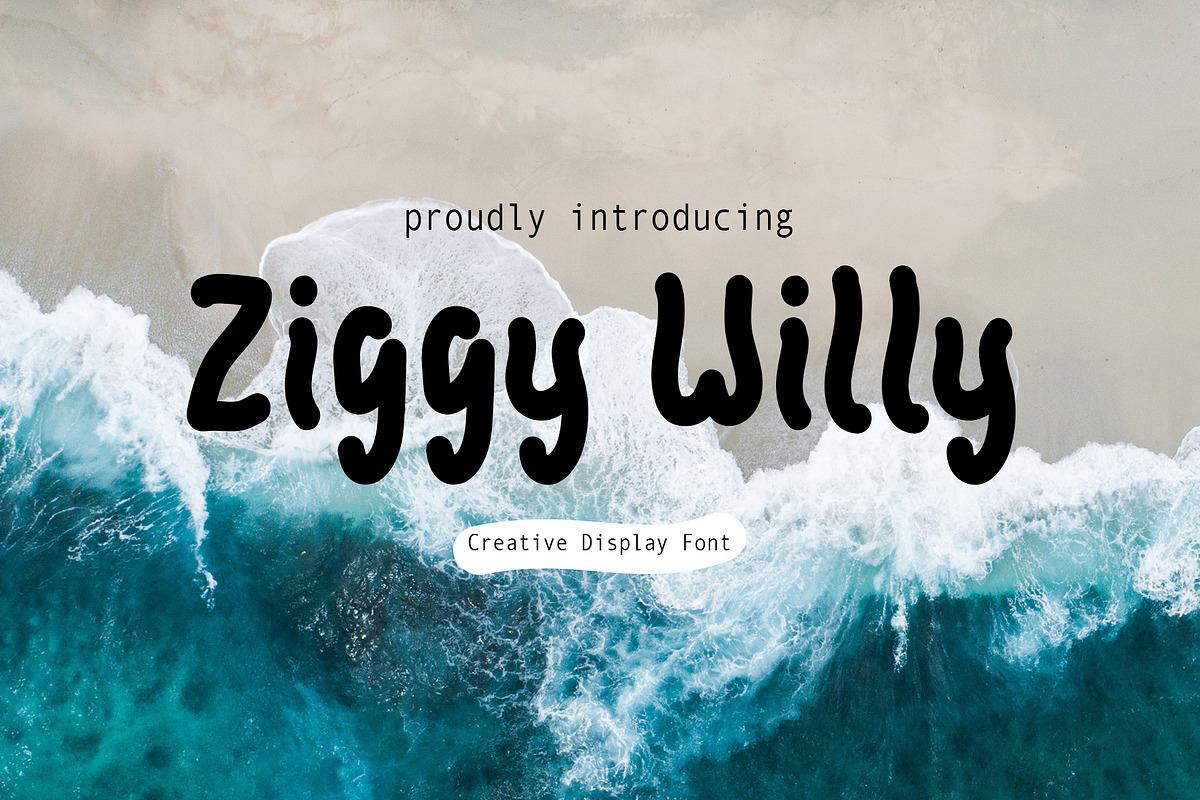
Please note that you must purchase this font for commercial use. You can download Ziggy Willy Creative Display Font for free, strictly for personal testing purposes only. Ziggy Willy is a fun, bold, and artistic display font that brings personality and flair to any design. With its quirky, hand-crafted style and playful letterforms, Ziggy Willy Font Free Download is perfect for creative projects such as posters, branding, t-shirt designs, logos, social media graphics, and any design that needs a bold, unique touch.
The font's whimsical nature makes it ideal for projects that require attention-grabbing and expressive typography. It includes uppercase letters, numerals, punctuation, and multilingual support, providing flexibility for various creative uses.
Whether you're designing for a fun event, creating unique merchandise, or adding a bit of personality to a brand, Ziggy Willy brings fun and vibrancy to your typography.